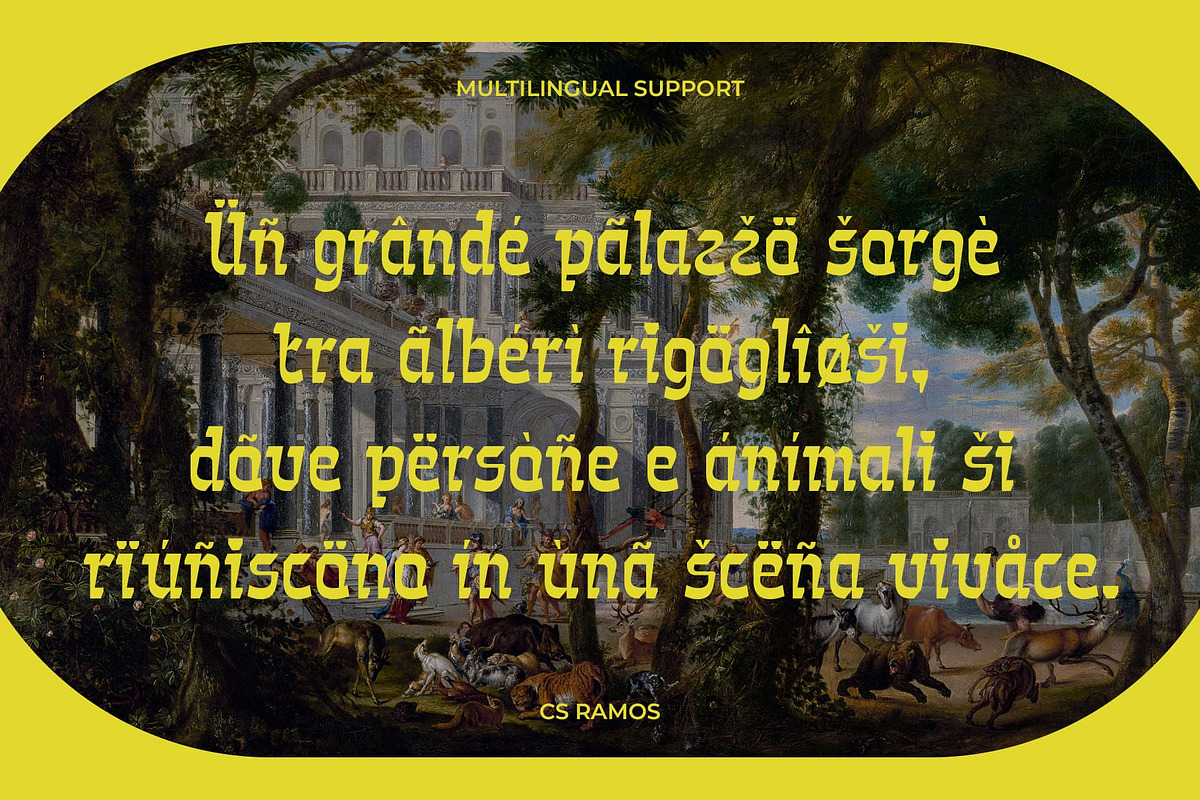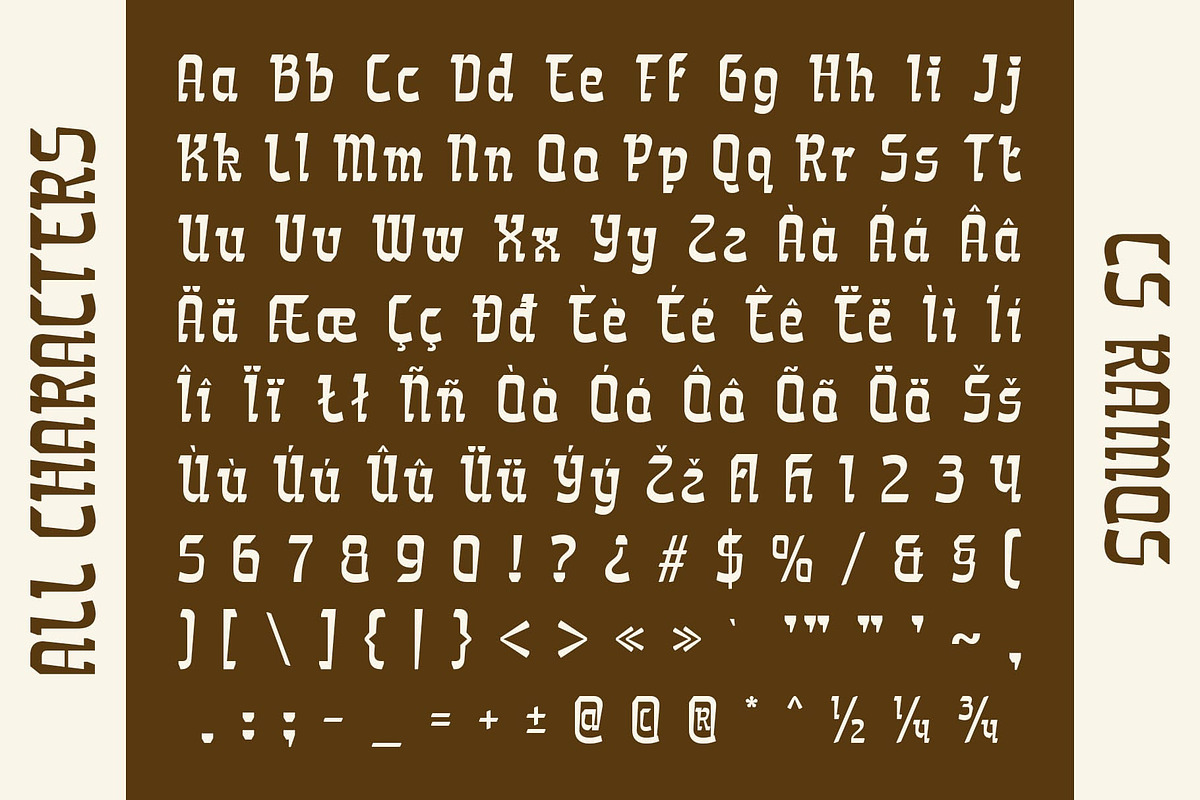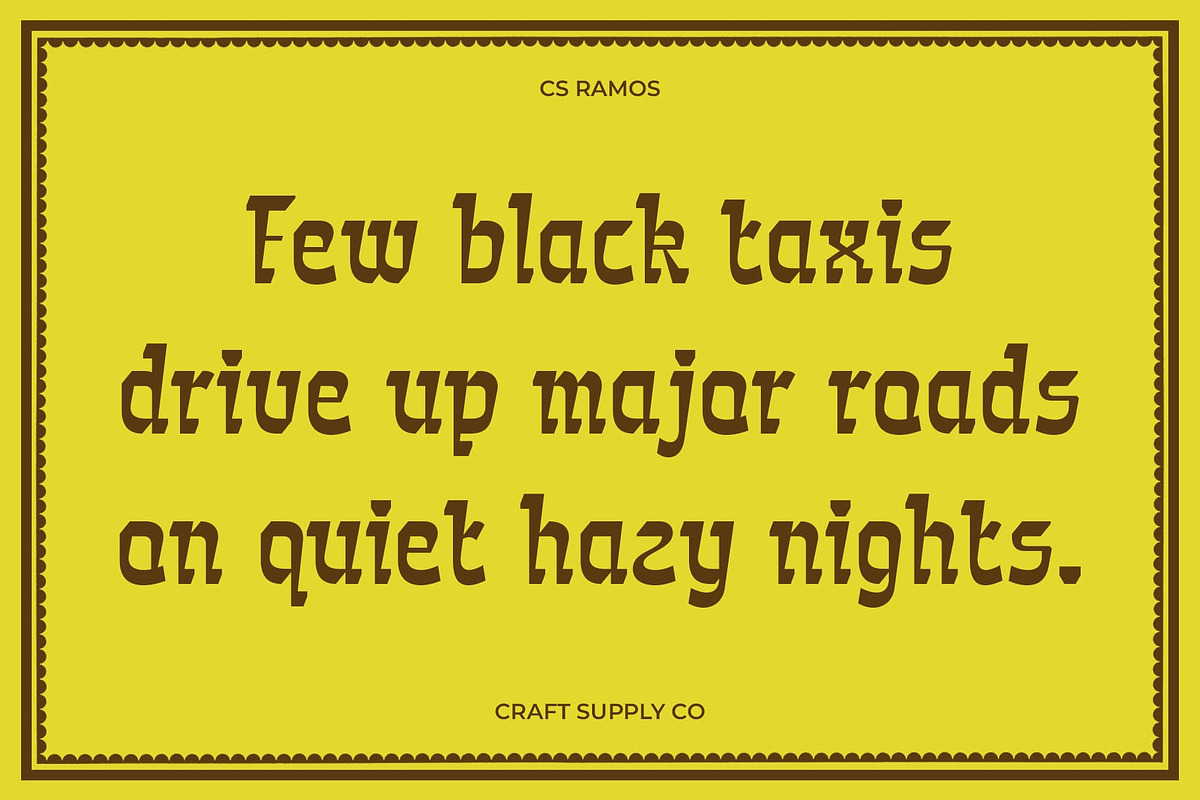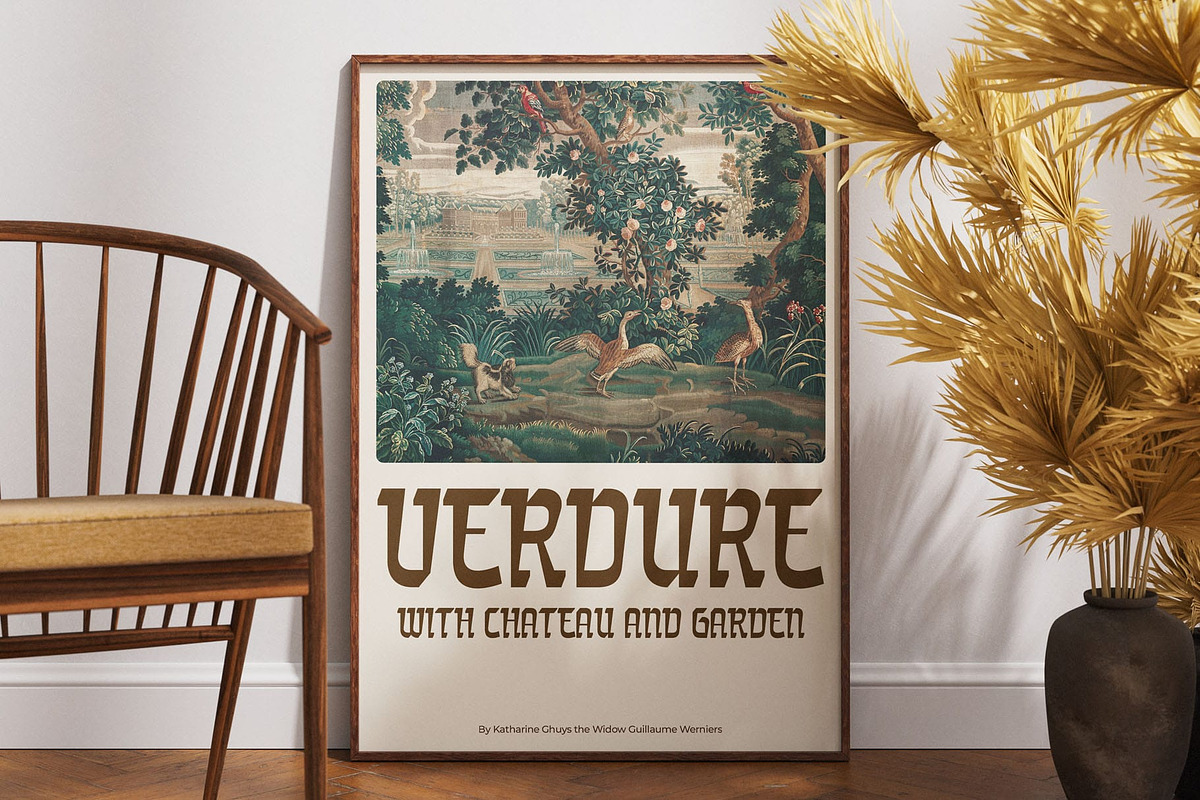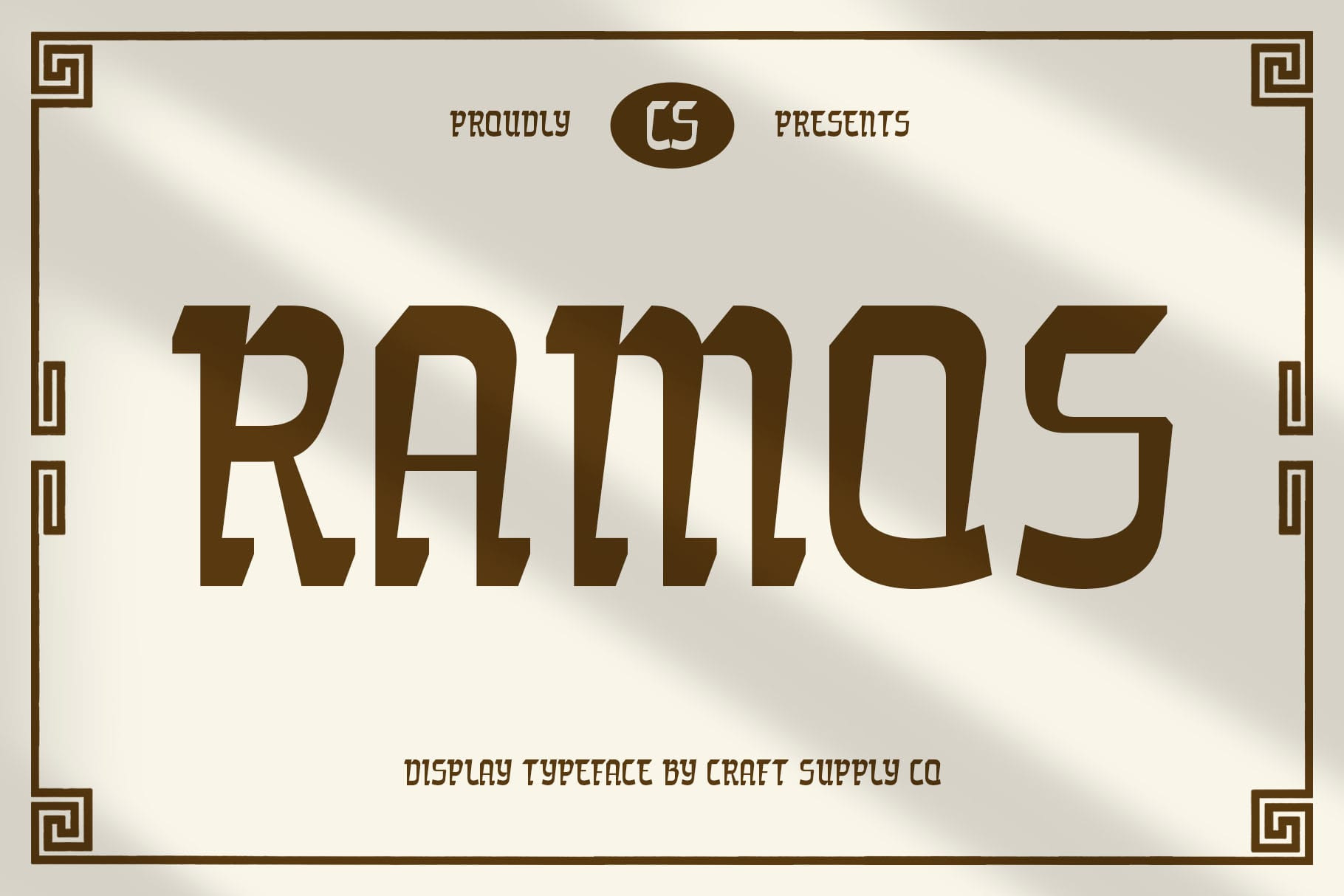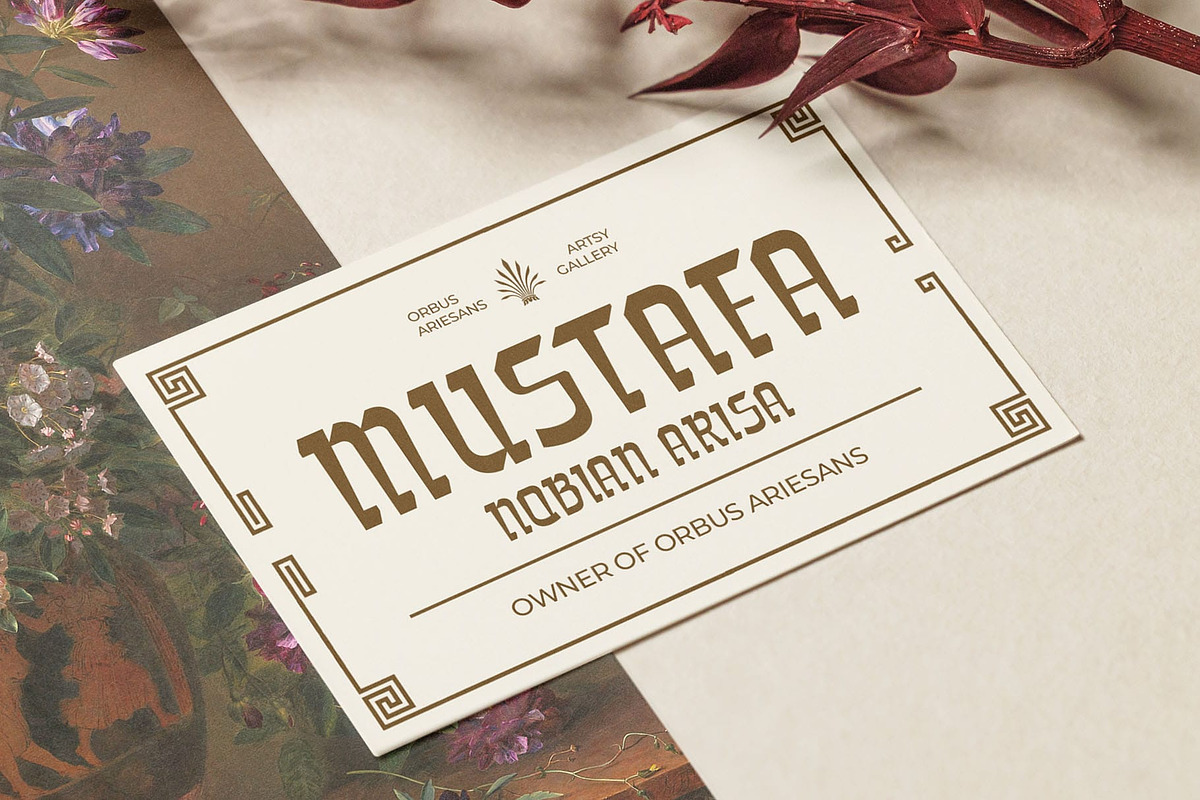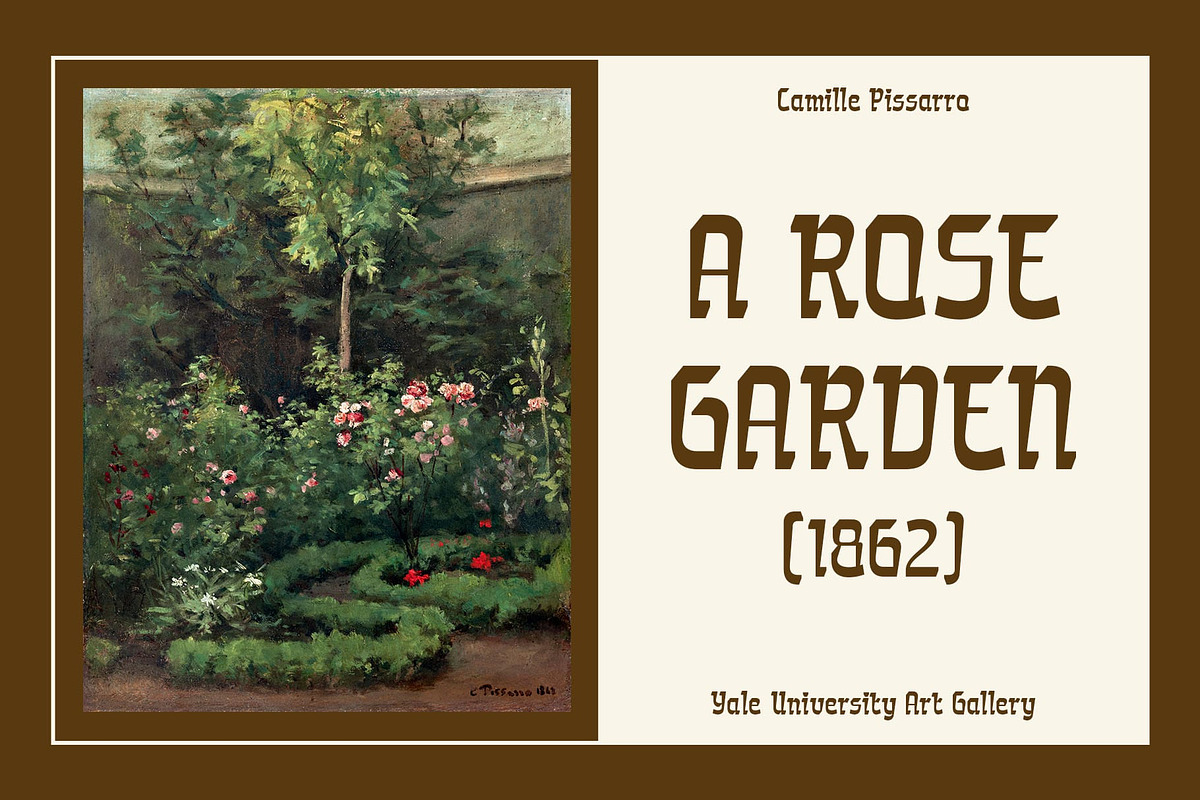
CS Ramos – Flat Brush Font
CS Ramos – Bold and Expressive Flat Brush Font
A Display Font with a Flat Brush Style CS Ramos is a display font that captures the essence of flat brush lettering, offering a casual yet bold aesthetic. With its natural brush strokes and slightly rough edges, this font delivers an authentic, artistic, and handcrafted look, making it perfect for expressive and dynamic designs.
Creative and Energetic Letterforms Designed with thick, flat strokes and organic movement, CS Ramos exudes a spontaneous and free-flowing feel. Its imperfect yet structured form adds a unique personality to any design, making it ideal for bold headlines, striking logos, and creative branding projects that demand attention.
Perfect for Artistic and Handmade Designs With its hand-drawn brush texture, CS Ramos works beautifully in posters, product packaging, apparel, social media graphics, and advertising. It enhances any project that seeks a lively, handcrafted, and artistic touch while maintaining strong readability and impact.
Versatile for Expressive and Modern Branding Whether for branding, marketing materials, or promotional content, CS Ramos brings a modern yet organic charm to your designs. Its bold and fluid brush strokes create a sense of movement and energy, making it a great choice for brands that want to stand out with an expressive and creative identity.